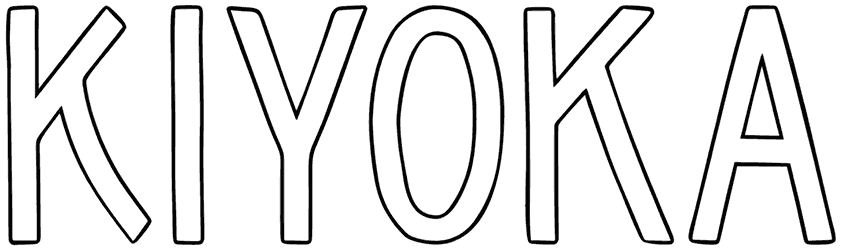
Kiyoka Font
Raising attention to your creations by picking a sans serif font like Kiyoka. As a fancy font with cartoonish hollow letters and a dominant mood, it can be matchable with many themes like animations, posters, toy packaging, stationery design, and more.
No need to worry about it lacking lowercase, just pull your finger out to absorb Kiyoka in many appropriate zones to share a notable, playful, and joyous vibe.